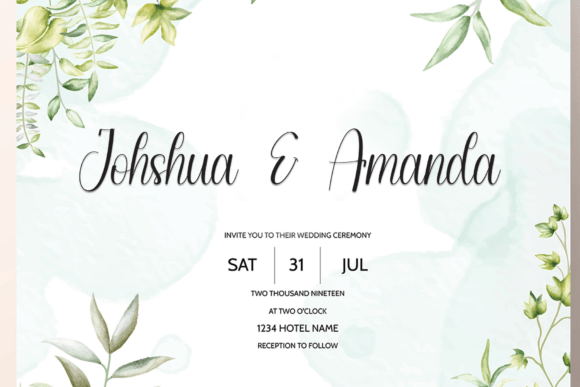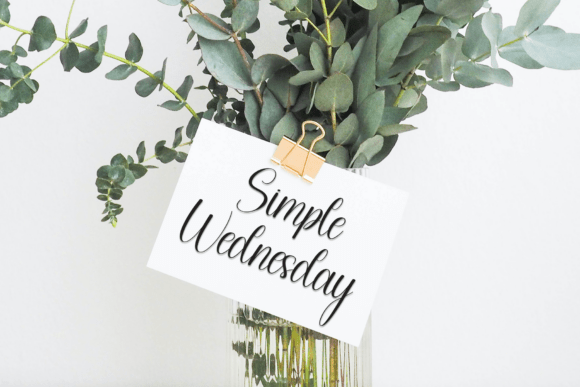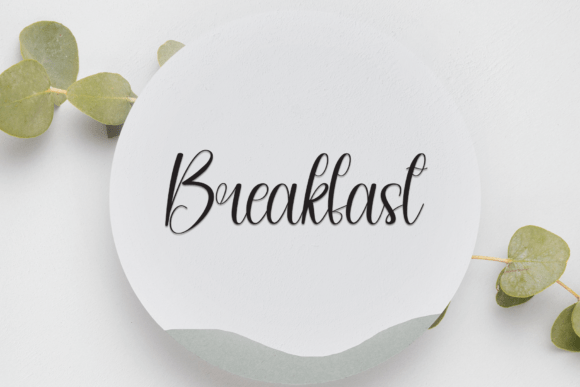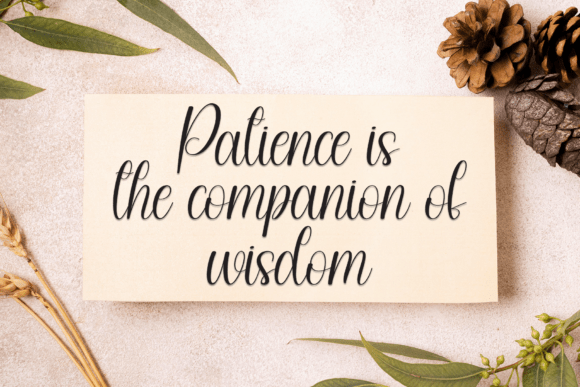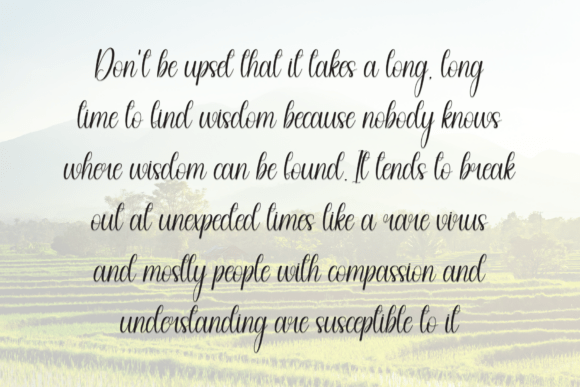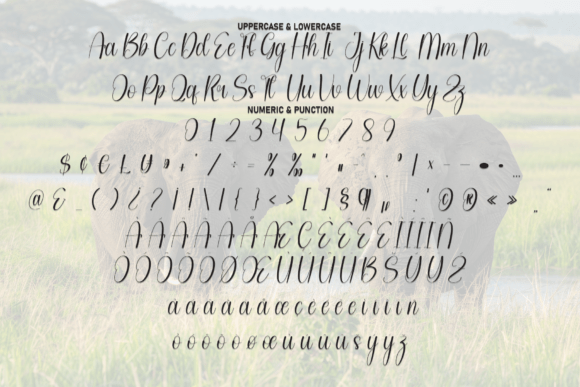
Introducing Elephant Font: A Handcrafted Display Font with Whimsical Charm
Are you tired of using generic fonts that lack personality and flair? Look no further than Elephant Font, a painstakingly handcrafted display font that is sure to elevate your design projects with its vivacious zeal and enticing elegance. This lively and flexible typeface is perfect for designers and crafters seeking to add a touch of sophistication and whimsy to their creations.
A Font that Exudes Sophistication and Warmth
Elephant Font boasts a unique blend of polished grace and whimsical charm, making it an ideal choice for wedding invitations, greeting cards, and other design projects where you want to make a lasting impression. Its elegant lines and curves evoke a sense of welcoming comfort, perfect for creating a warm and inviting atmosphere. Whether you’re designing for a special occasion or simply want to add some personality to your everyday projects, Elephant Font is the perfect choice.
One of the best things about Elephant Font is its versatility. Its lively and flexible design makes it suitable for a wide range of projects, from:
- Signs and posters
- Social media graphics and branding
Whether you’re a designer, crafter, or DIY enthusiast, Elephant Font is sure to become a go-to choice for all your design needs.
What Sets Elephant Font Apart
So, what makes Elephant Font so special? Here are just a few features that set it apart from other display fonts:
- Handcrafted with love: Each letter and character has been carefully crafted by hand, giving the font a unique and personal touch.
- Whimsical charm: Elephant Font has a playful, whimsical quality that adds a touch of personality to any design.
- Polished elegance: Despite its playful nature, Elephant Font also boasts a sophisticated, elegant design that’s perfect for formal occasions.
- Flexibility: The font is highly versatile and can be used for a wide range of projects and applications.
How to Use Elephant Font in Your Designs
- Pair it with contrasting fonts: Elephant Font works beautifully with simpler fonts, such as sans-serif or serif fonts. Try pairing it with a clean, minimalist font to create visual interest.
- Experiment with colors: The font looks great in a range of colors, from bold and bright to soft and pastel. Try experimenting with different color combinations to find the perfect look for your design.
- Add embellishments: Elephant Font is perfect for adding a touch of whimsy to your designs. Try adding embellishments, such as illustrations or graphics, to give your design an extra boost.
Elephant Font is a truly unique and special display font that’s sure to elevate your design projects with its vivacious zeal and enticing elegance. Its rich blend of whimsical charm and polished grace makes it perfect for designers and crafters seeking to add a touch of personality and sophistication to their creations. Whether you’re designing for a special occasion or simply want to add some flair to your everyday projects, Elephant Font is the perfect choice.